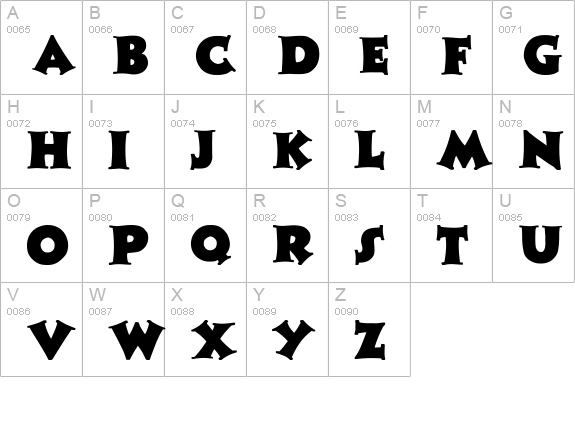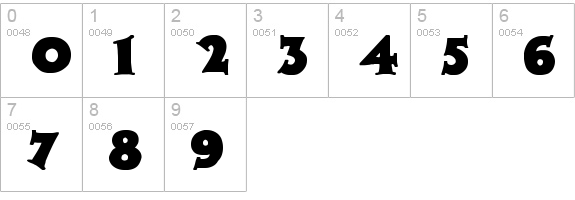
Zaleski Bold Font Details
Zaleski Bold is a strong, high-contrast variant in the Zaleski typeface family \xE2\x80\x94 well suited to headlines, attention-grabbing titles, and strong calls-to-action.
Zaleski Bold font is a striking and elegant typeface that exudes confidence and sophistication. With its bold and modern design, Zaleski Bold commands attention and adds a touch of luxury to any project. The strong, clean lines of this font make it perfect for headlines, logos, and other design elements that require a bold statement. What sets Zaleski Bold apart is not only its visual appeal but also its versatility. This font can be used across a wide range of design projects, from branding and advertising to packaging and web design. Its timeless aesthetic ensures that it will remain a classic choice for years to come. Best of all, Zaleski Bold is available for free download at FontsMarket.com. This means that you can easily access this high-quality font and incorporate it into your projects without any additional cost. Don't miss out on the opportunity to elevate your designs with Zaleski Bold font. Download it today and see the difference it can make!